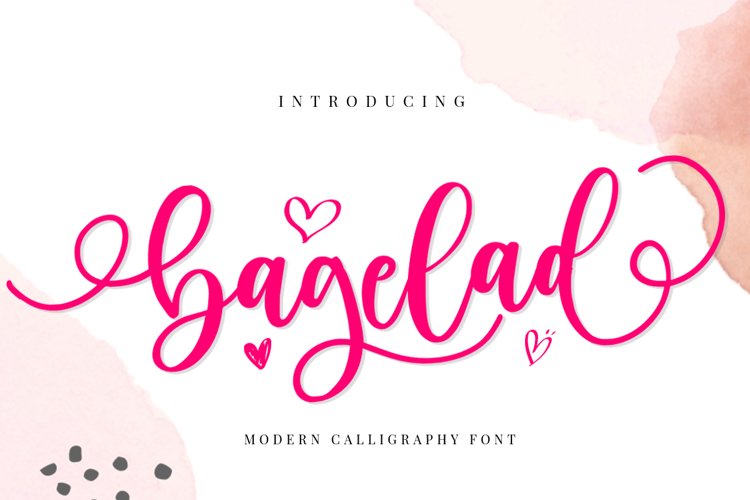
Bagelad is Lovely script calligraphy font while elegance still maintained. It will boost your design stand out!
Bagelad is such the perfect typeface for any kind of your project, such as advertisements, branding, graphic design, quotes, wedding design, logo for online or offline business, photography, and others. Make your business more beautiful!